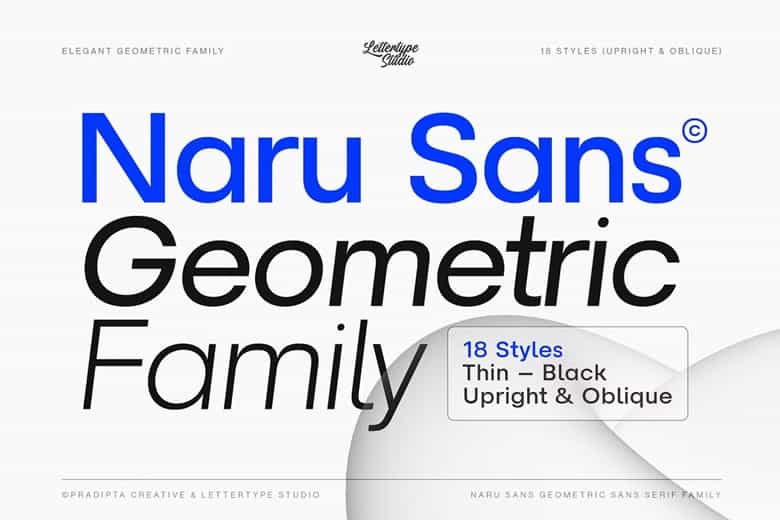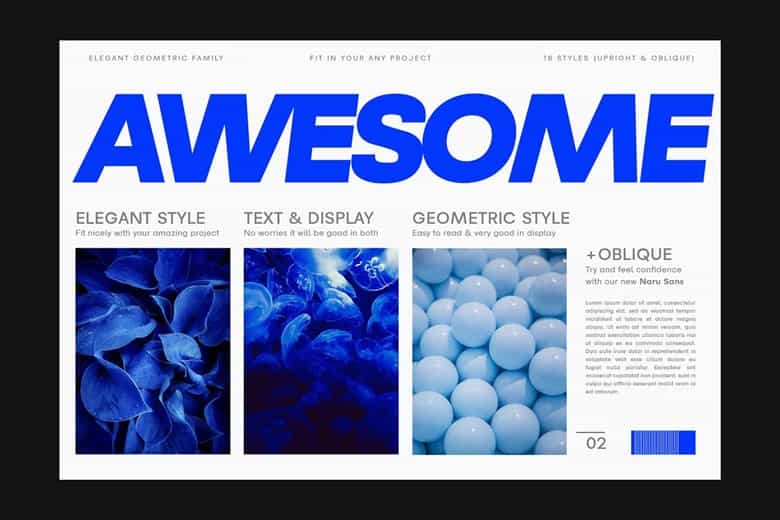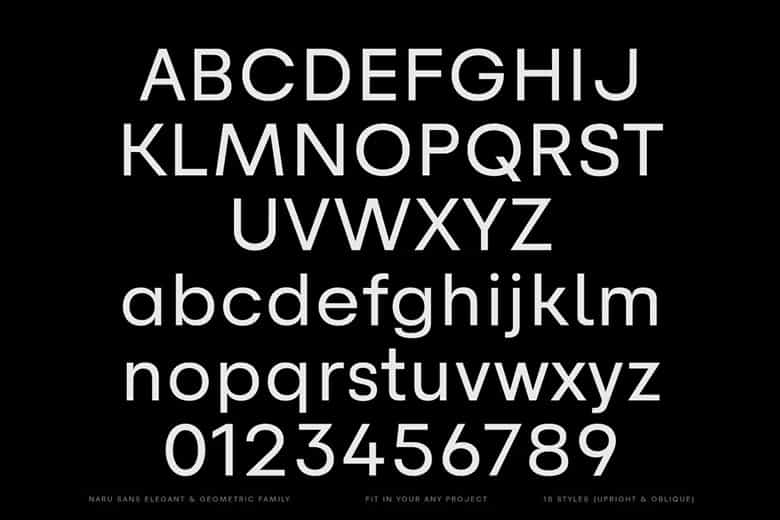
Naru Sans is a sans-serif geometric font with elements of grotesk, it appears to be simply natural and unpretentious, but at the same time it has a rich range of emotional shades. Created for clear and functional usage, nevertheless, this font type is imbued with geometrical influences, but it is still friendly and adjustable for grotesque typography possibilities. Cenatype contains a wide variety of weights, from thin to black and has 18 weights as well as oblique styles.